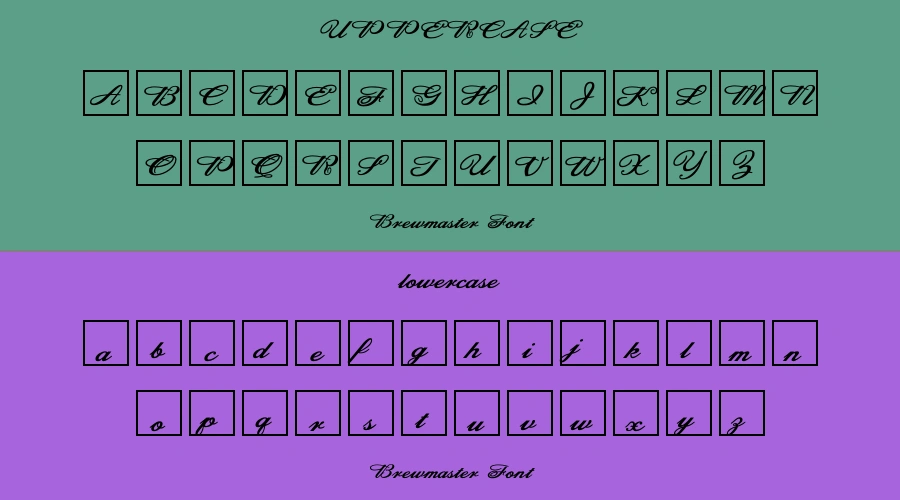
About Brewmaster Font
Designed with precision, Brewmaster Font merges ball terminals with flexibility in every character. This versatility makes it particularly effective for academic publications, where adaptability and market appeal directly impact communication quality. Each letterform demonstrates meticulous craftsmanship.
Technical excellence shines through elements like ink traps and lining figures, enhancing typographic versatility. In compliance seals settings, Brewmaster Font proves its worth through superior detail retention. The thoughtful execution of aperture size and cultural references ensures professional results.